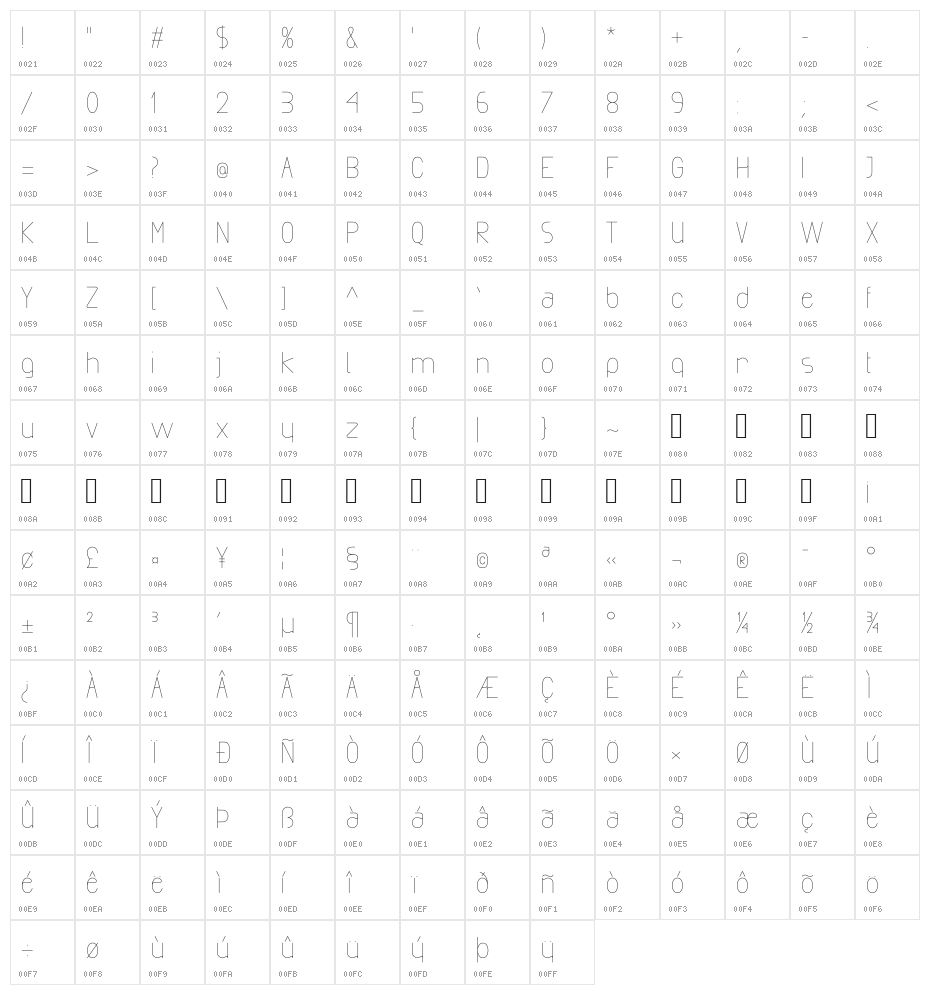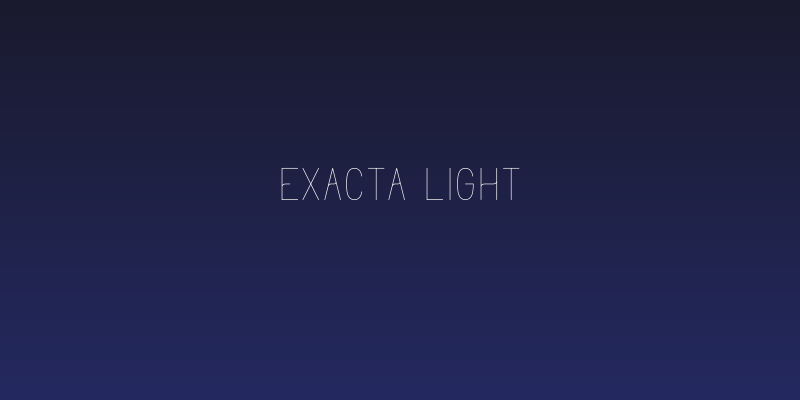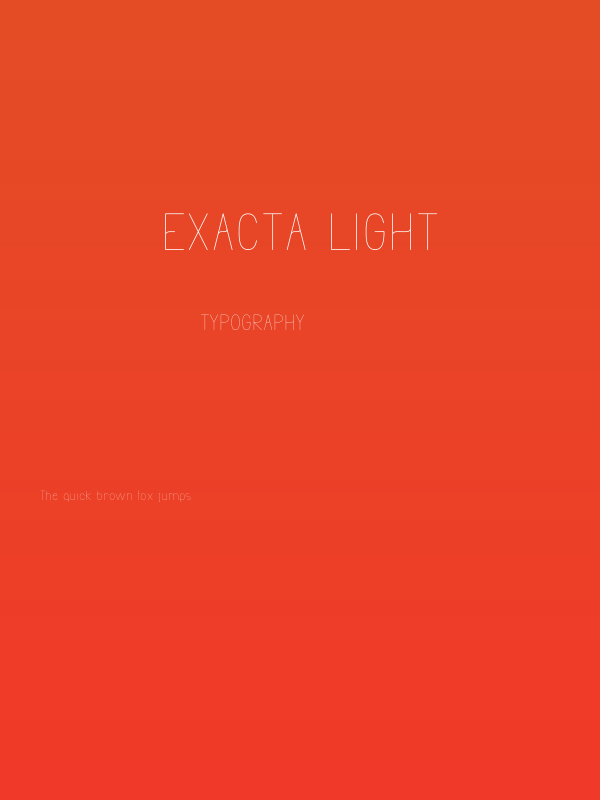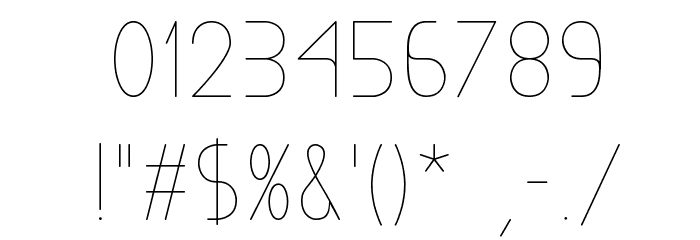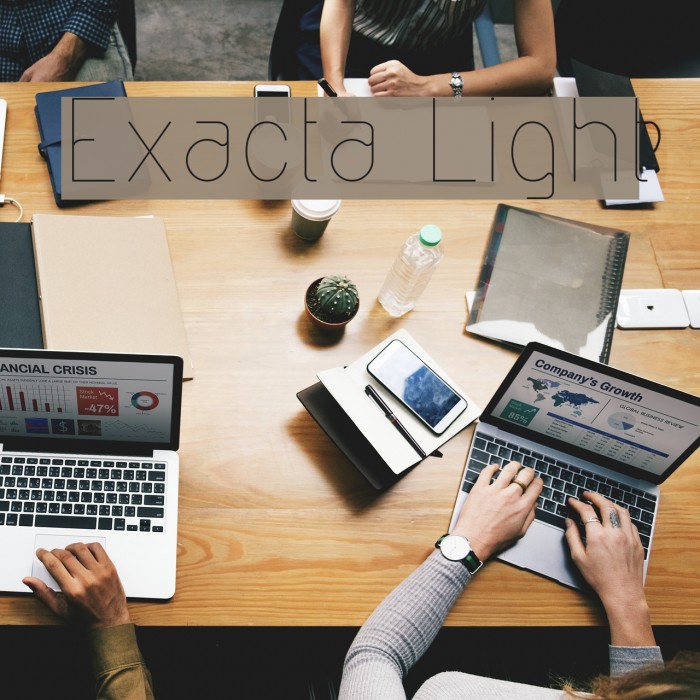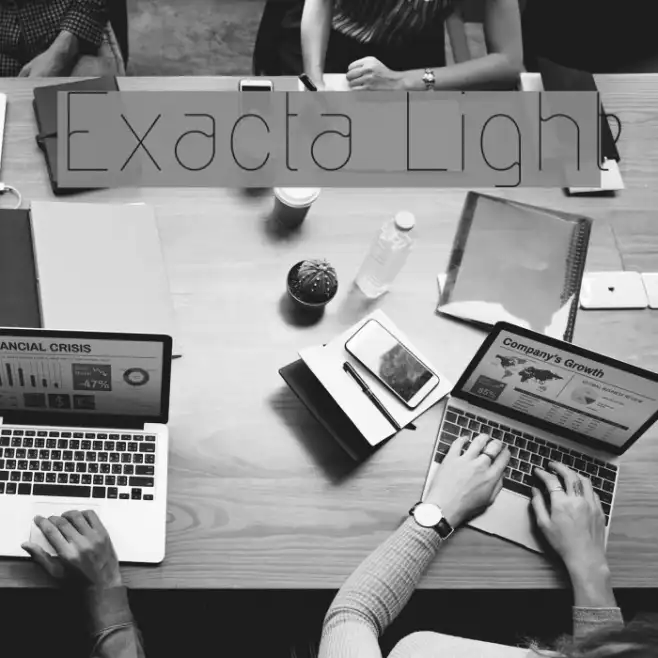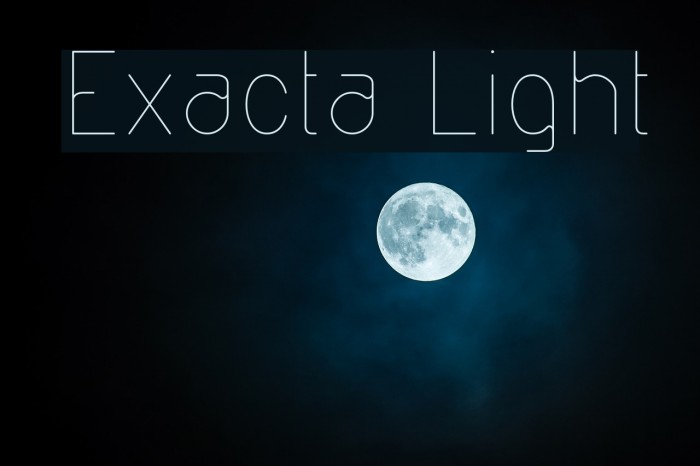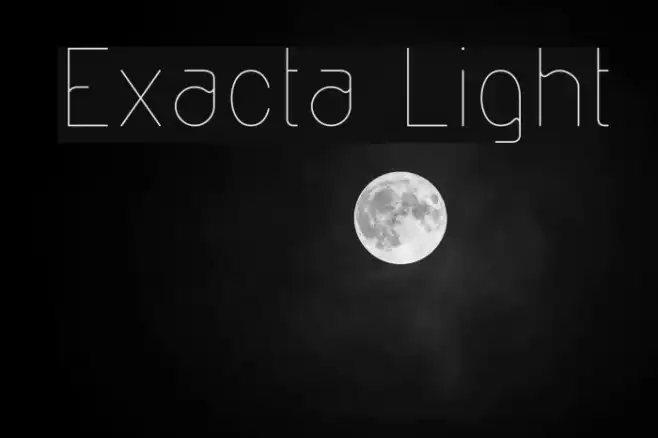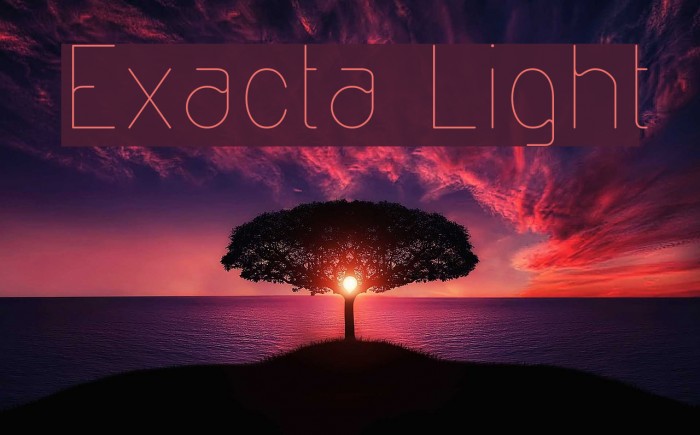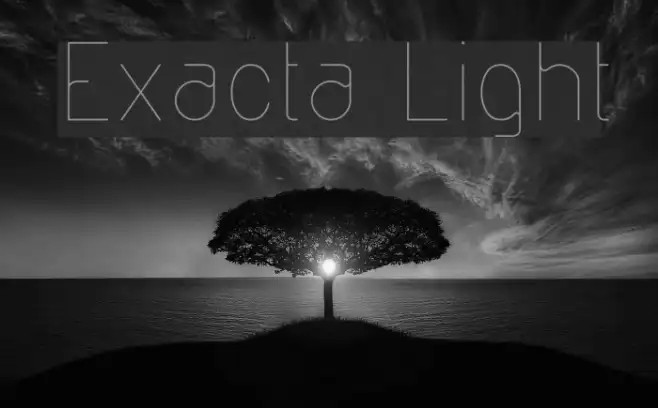
Exacta Light Font
Exacta Light Description
This font features a clean and minimalistic design with thin, uniform strokes that give it a light and airy appearance. The characters are well-proportioned, with a geometric influence evident in the straight lines and subtle curves. The uppercase letters are tall and elegant, while the lowercase letters maintain a consistent style, enhancing readability. The numerals are distinct and align well with the overall aesthetic, making them suitable for various applications. Special characters are included, maintaining the font's cohesive look. This font is ideal for projects that require a modern and sophisticated touch.
| Proposed Projects | Ideal for modern branding, minimalist design projects, editorial layouts, and digital interfaces. |